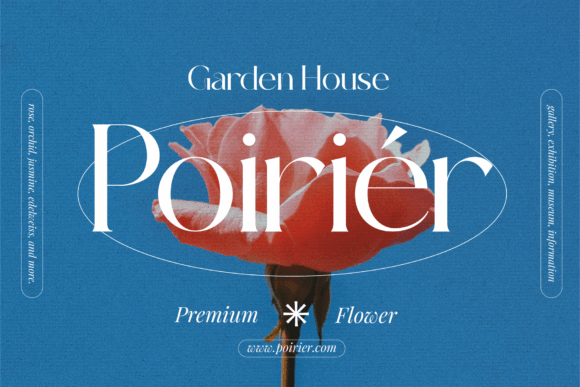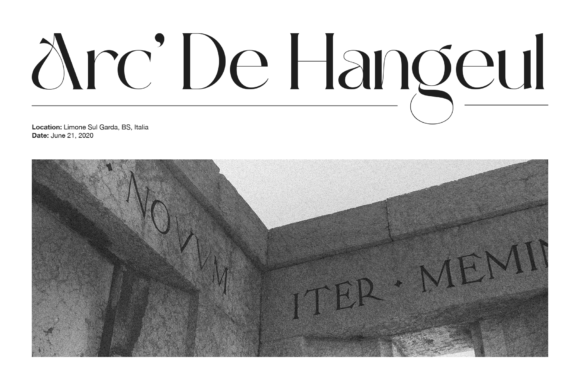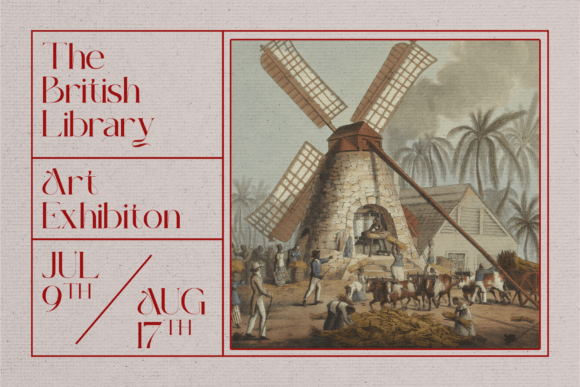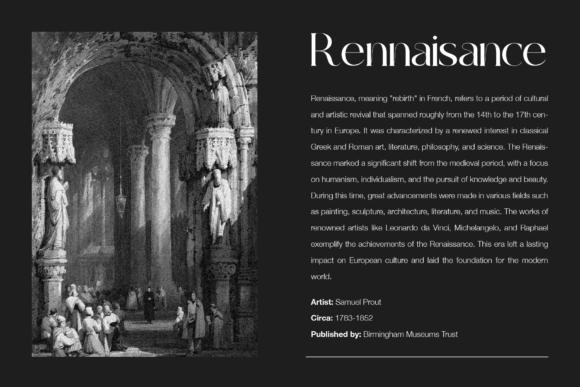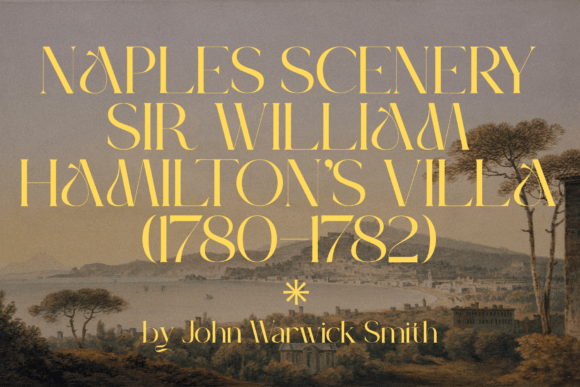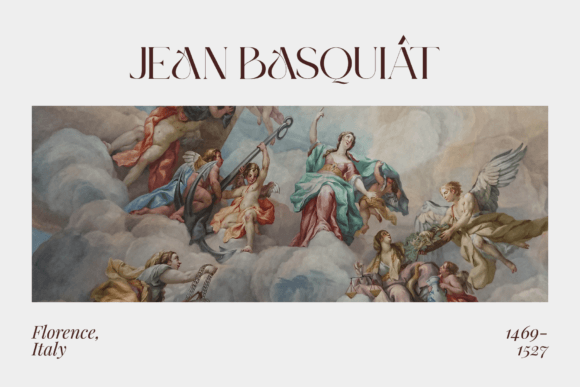
Introduction to Mirage Against Font
Have you ever stared at a blank canvas, waiting for inspiration to strike? The blank page stares back, a daunting challenge to your creativity. But what if you had the perfect tool to unlock your imagination? For designers, finding the right font can be a game-changer. It’s the difference between a mediocre design and a masterpiece. And when it comes to elegance and sophistication, few fonts can match the allure of Mirage Against Font.
This modern serif typeface is more than just a pretty face – it’s a design resource that can elevate your creative project to new heights. With its unique alternative styles and perfect kerning, Mirage Against Font is the perfect choice for luxury logos, editorial designs, and fashion promotions. And the best part? It’s available for free download, making it an accessible design tool for designers of all levels.
Mirage Against Font
- Unique, stylish font with a transparent background, perfect for adding a touch of elegance to your designs.
- Includes a comprehensive character set, covering a wide range of languages and alphabets.
- Perfect for designers, artists, and creatives working on various design projects, from logos to typography-based artwork.
Honest Review: Mirage Against Font
As a designer, I’ve come across my fair share of fonts. But when I stumbled upon the Mirage Against Font, I was immediately drawn to its unique style. With a free download available, I couldn’t wait to put it to the test.
One of the standout features of this font is its transparent background. This makes it incredibly versatile for creative projects, allowing designers to easily layer it over other elements without any issues. ✨
Here are some of the things I like about the Mirage Against Font:
- High-quality design: The font has a crisp, clean look that’s perfect for modern designs.
- Flexible use: The transparent background makes it easy to use in a variety of creative projects.
- Limited character set: The font only includes a limited set of characters, which may not be suitable for longer texts. ⚠️
- May not be suitable for all designs: While the font is versatile, it may not be the best choice for more traditional or formal designs.
Overall, I’m impressed with the Mirage Against Font. It’s a high-quality design resource that’s perfect for creative projects. With a little creativity, it’s easy to work around its limitations. I’d definitely recommend it to fellow designers looking for a unique font to add to their collection.
Mirage Against Font
Mirage Against Font is a high-quality design resource ideal for creative projects that require a unique and eye-catching visual element. With a transparent background, this font is perfect for adding depth and interest to your designs.
Tips for Getting the Most Out of Mirage Against Font
To get the most out of Mirage Against Font, be sure to experiment with different font sizes, colors, and styles to create a unique and eye-catching visual element for your design. You can also use the font in combination with other design elements to create a cohesive and visually appealing design.
Mirage Against Font is ideal for a variety of creative projects, including:
- Graphic design projects
- Web design projects
- Print design projects